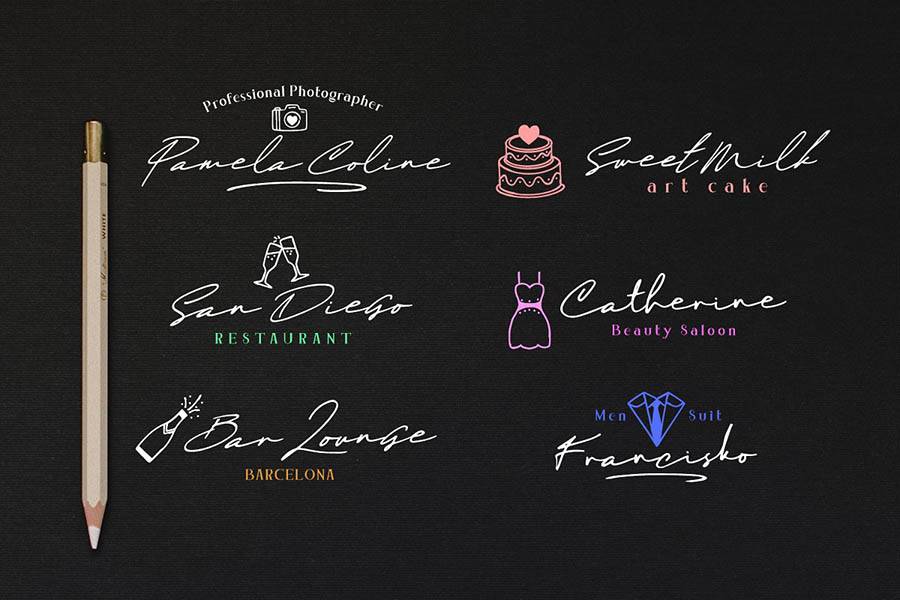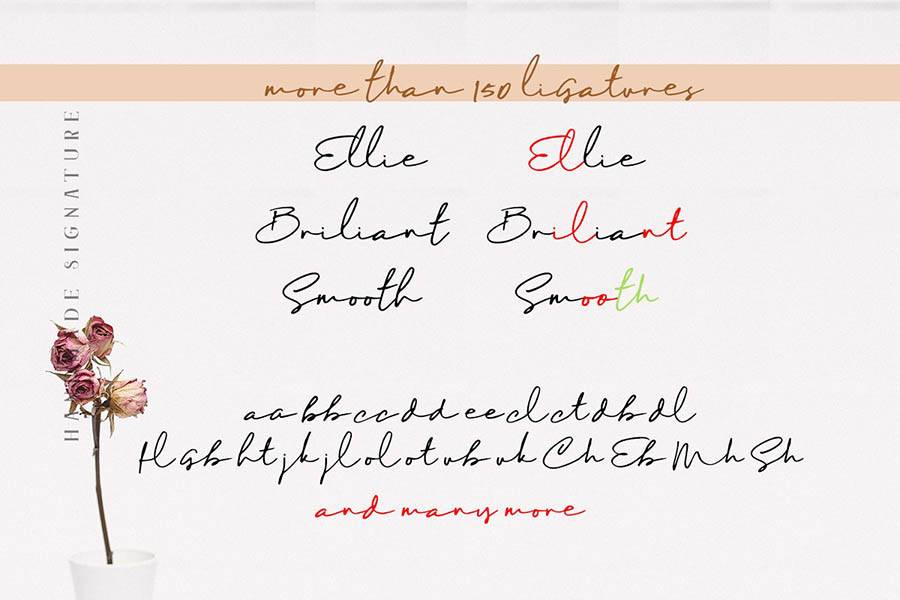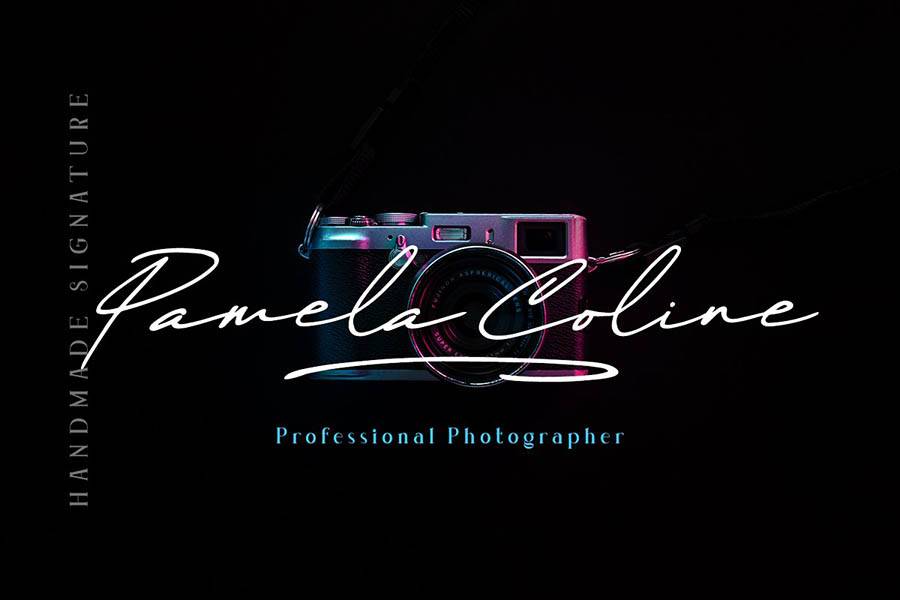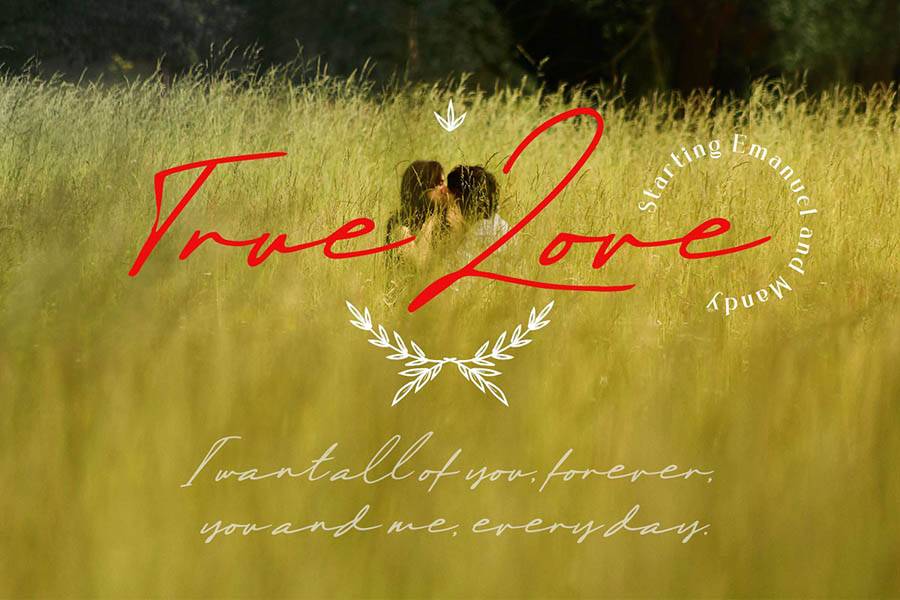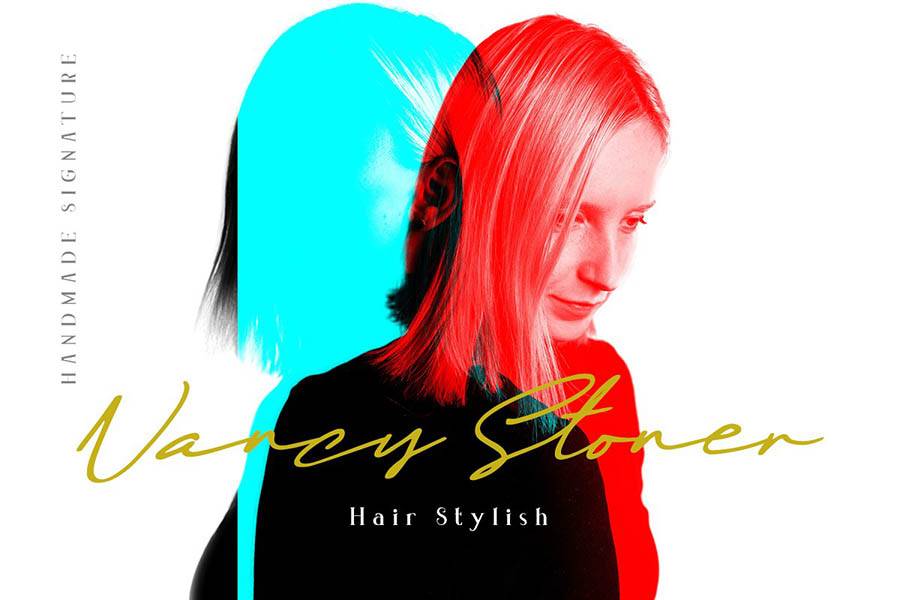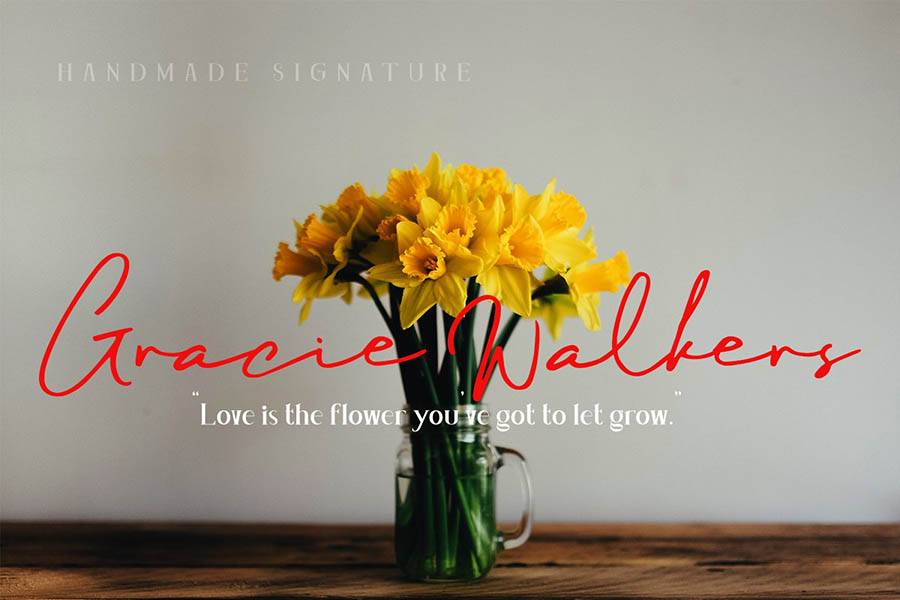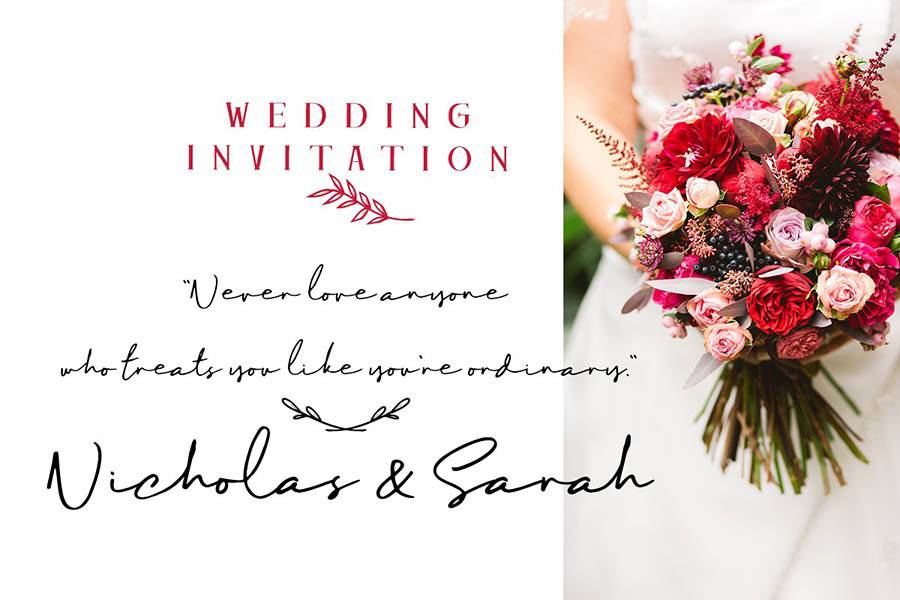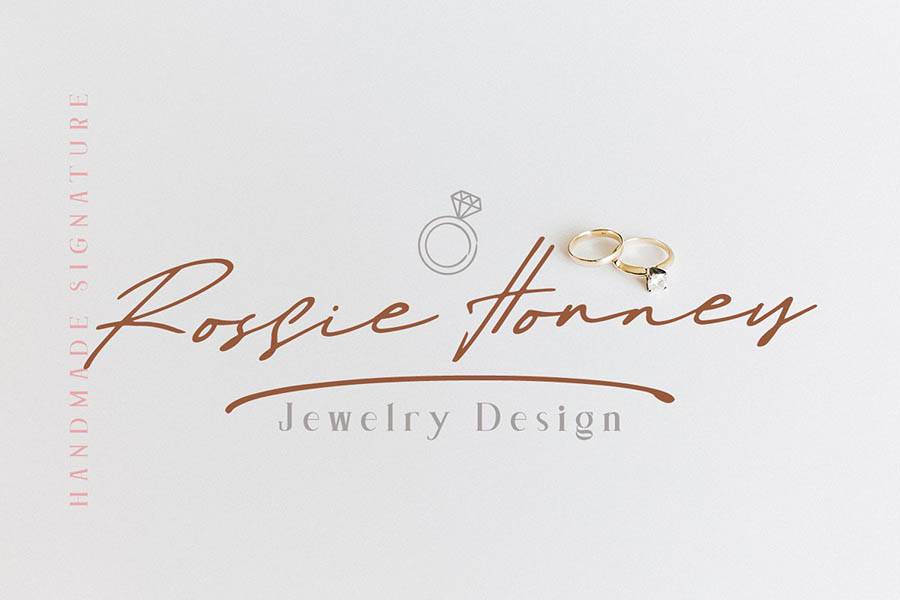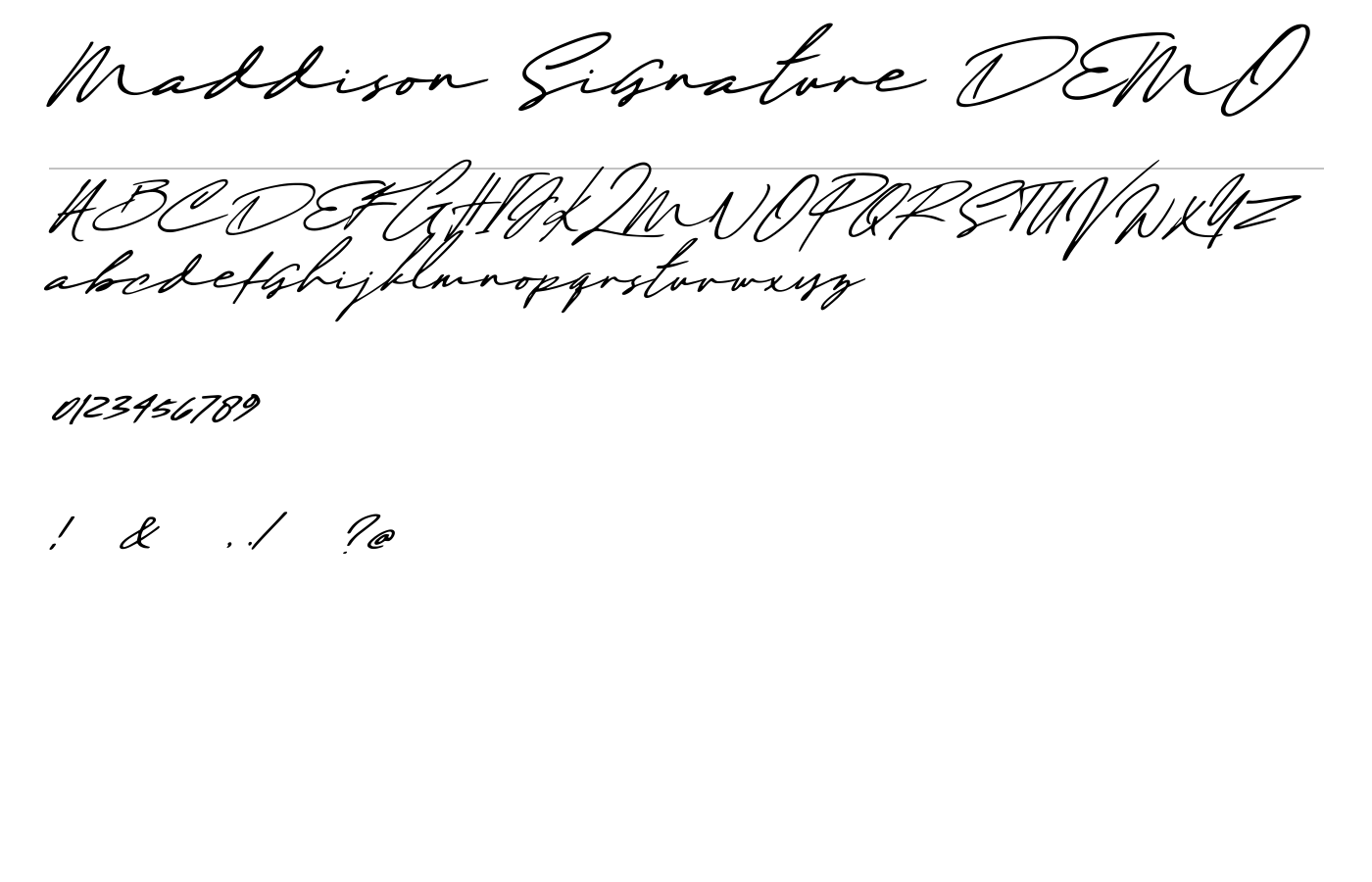
Maddison Signature Script is an elegant, flowing handwritten font that mimics the natural style of a personal signature. Its slender, slightly irregular strokes convey a sense of sophistication and individuality, making it perfect for luxury branding, invitations, and creative projects that require a personal, stylish touch. This font works best in logos, headlines, and display uses where its unique character can truly stand out.
Maddison Signature Script
About Maddison Signature Script
| Font family | Maddison Signature Script |
| Release date | 2019-02-24 |
| Designer | Suandana I Pande Made |